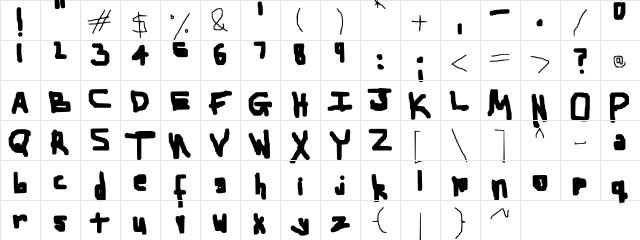
The power on my laptop's about to run out too Regular
Design Context for The power on my laptop's about to run out too Typeface
The power on my laptop's about to run out too has the bold swagger of sports branding: strong, assertive letterforms designed to dominate headlines and jerseys alike.
Built for sports team identities, athletic apparel, event posters, and high-energy promotional material.
Font Pairing: Use alongside a condensed or geometric sans for supporting copy — keep the pairing bold, functional, and free of ornament.
Pro Tip: The power on my laptop's about to run out too thrives on contrast — try it large, bold, and tight against a clean background for maximum visual impact.